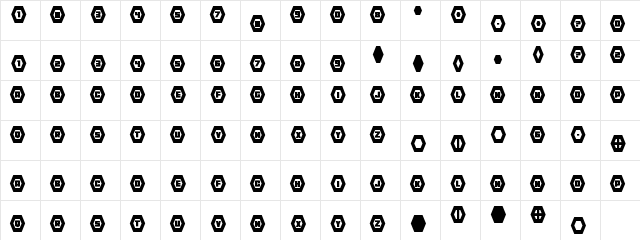
HeXkEy Condensed Regular
Design Context for HeXkEy Condensed Typeface
HeXkEy Condensed is a composed and adaptable typeface that performs quietly and consistently across a wide range of design contexts. Its narrow stance lets it pack a punch even in space-constrained designs.